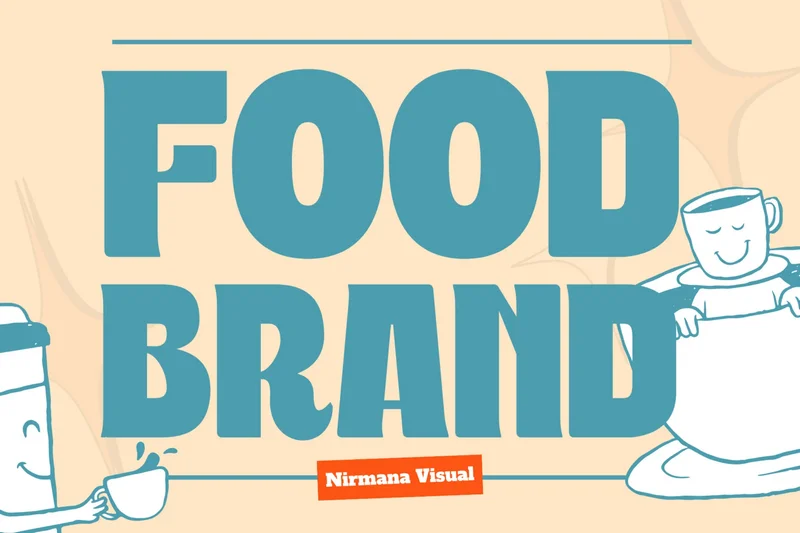
Food Brand – Logo Cafe Font
Food Brand offers beautiful typographic harmony for a diversity of design projects, including logos & branding, social media posts, advertisements & product designs.